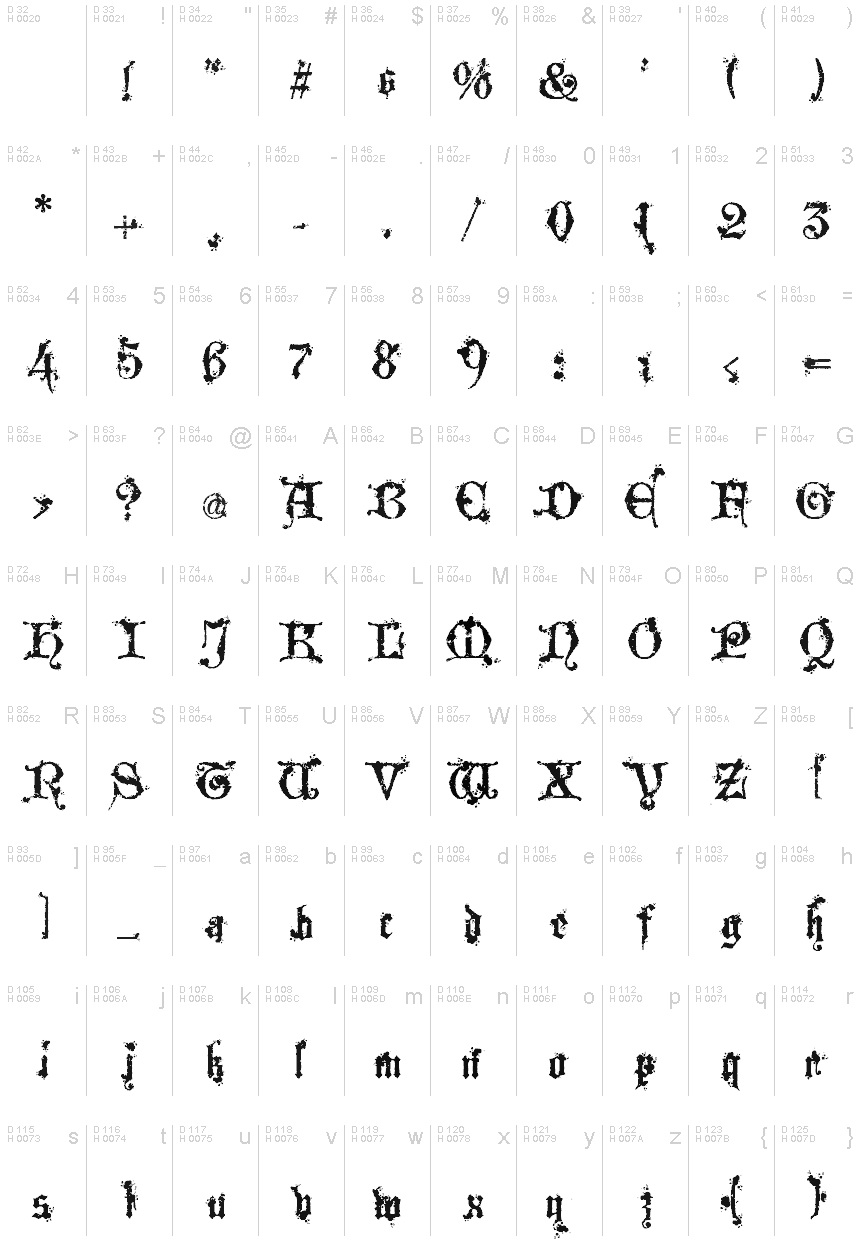
Dogma
Dogma font by Anfa is a free distorted display typeface that looks like blackletter left out in the rain and eaten away by ink and rust. The letters feel heavy and ceremonial at their core, but they’re shredded at the edges with splatters, gaps, and rough erosion, giving every word a gritty, unstable energy.
Using Dogma, you can push horror movie posters, metal band logos, dark game titles, occult book covers, underground event flyers, and merch graphics into truly grim territory. This free font works best huge, letting the splatter textures breathe; pair it with a plain, narrow sans serif for supporting text so the chaos in Dogma stays sharp and legible.